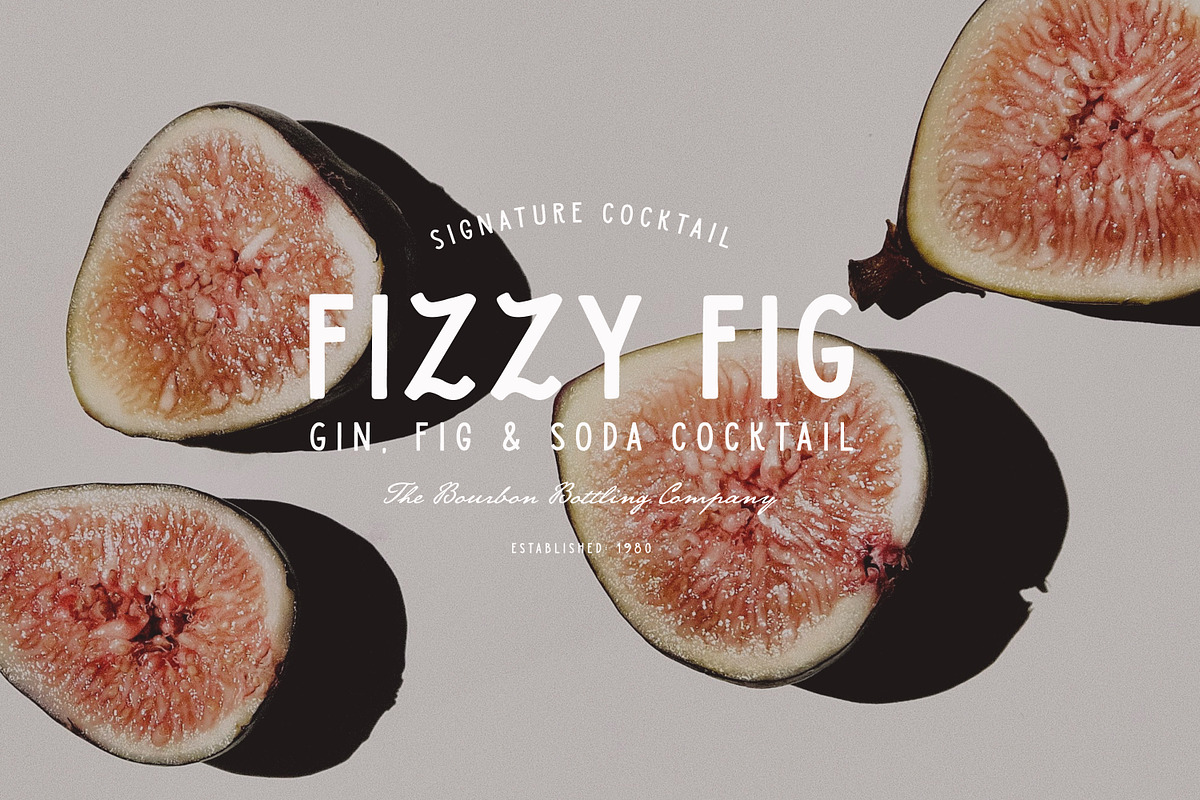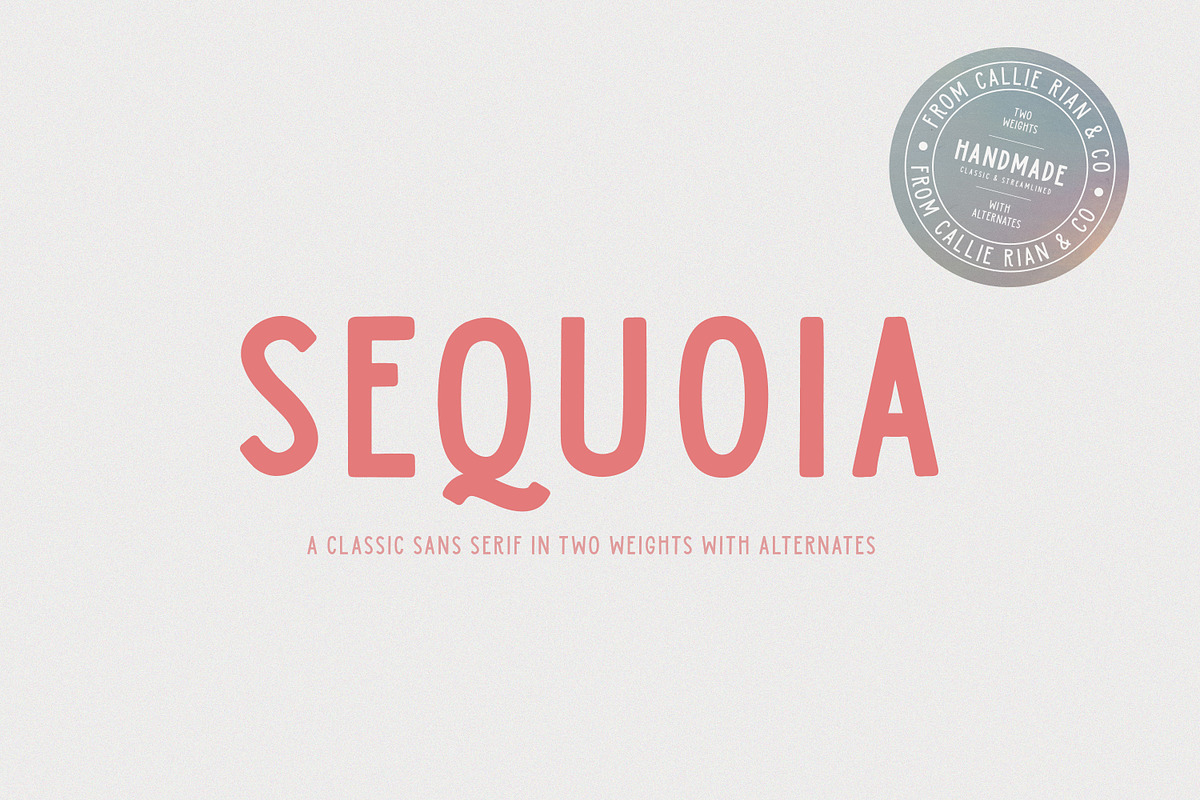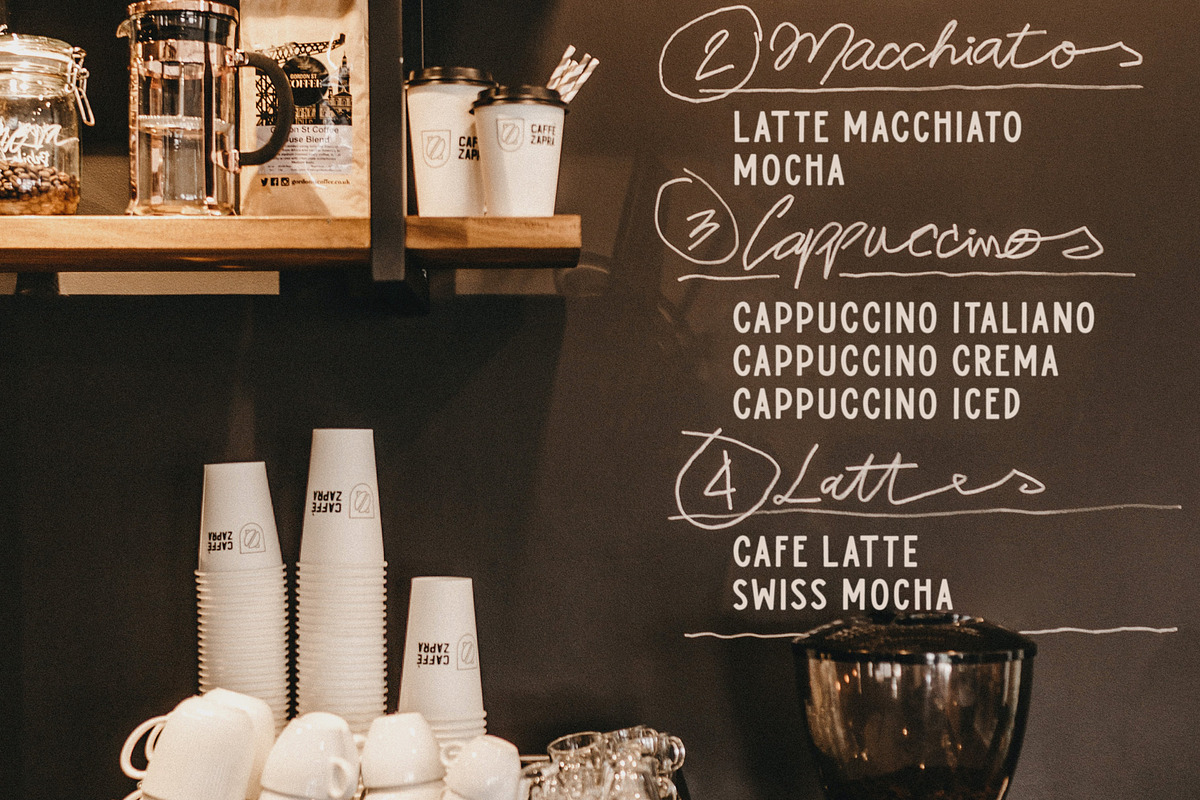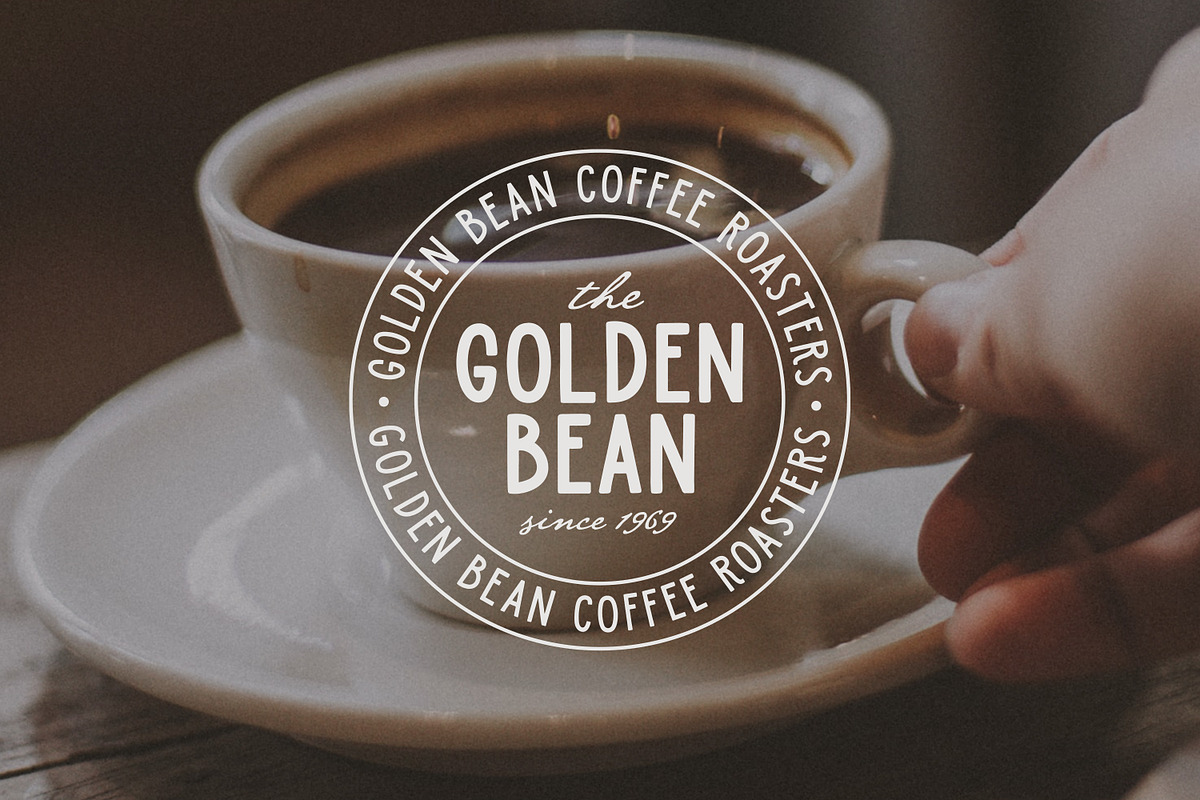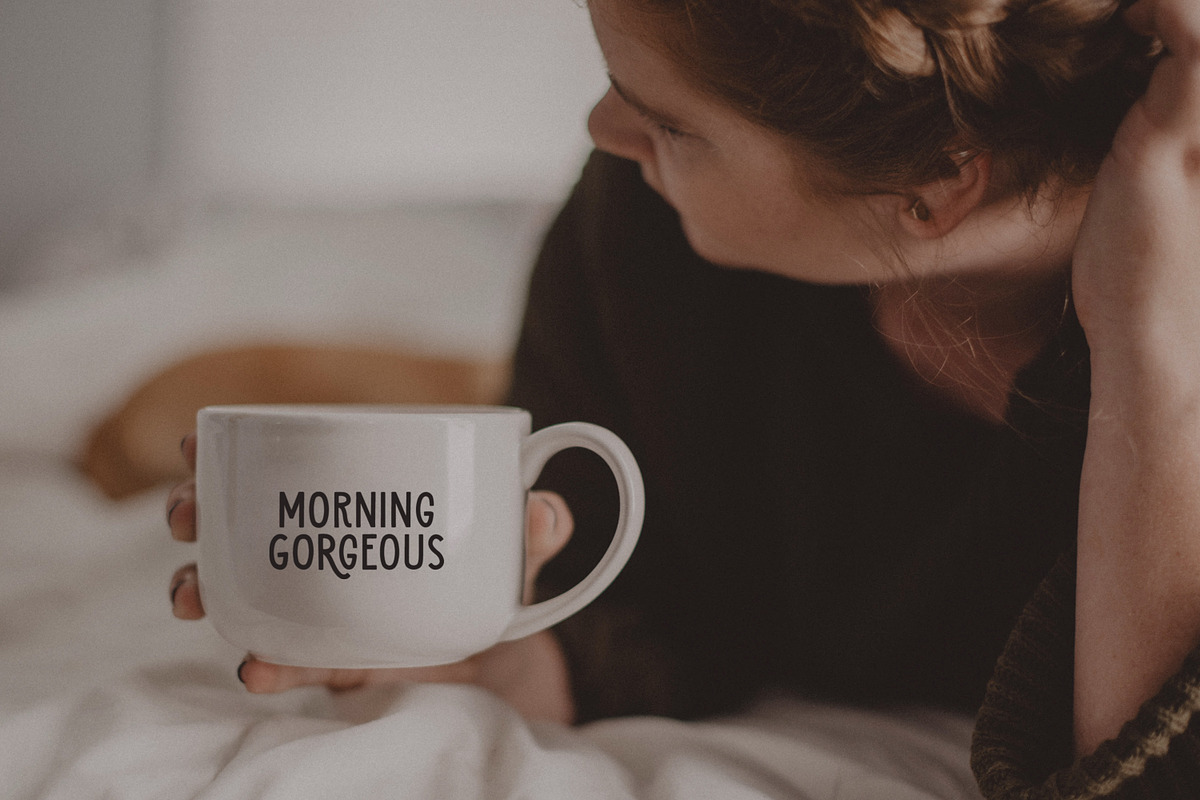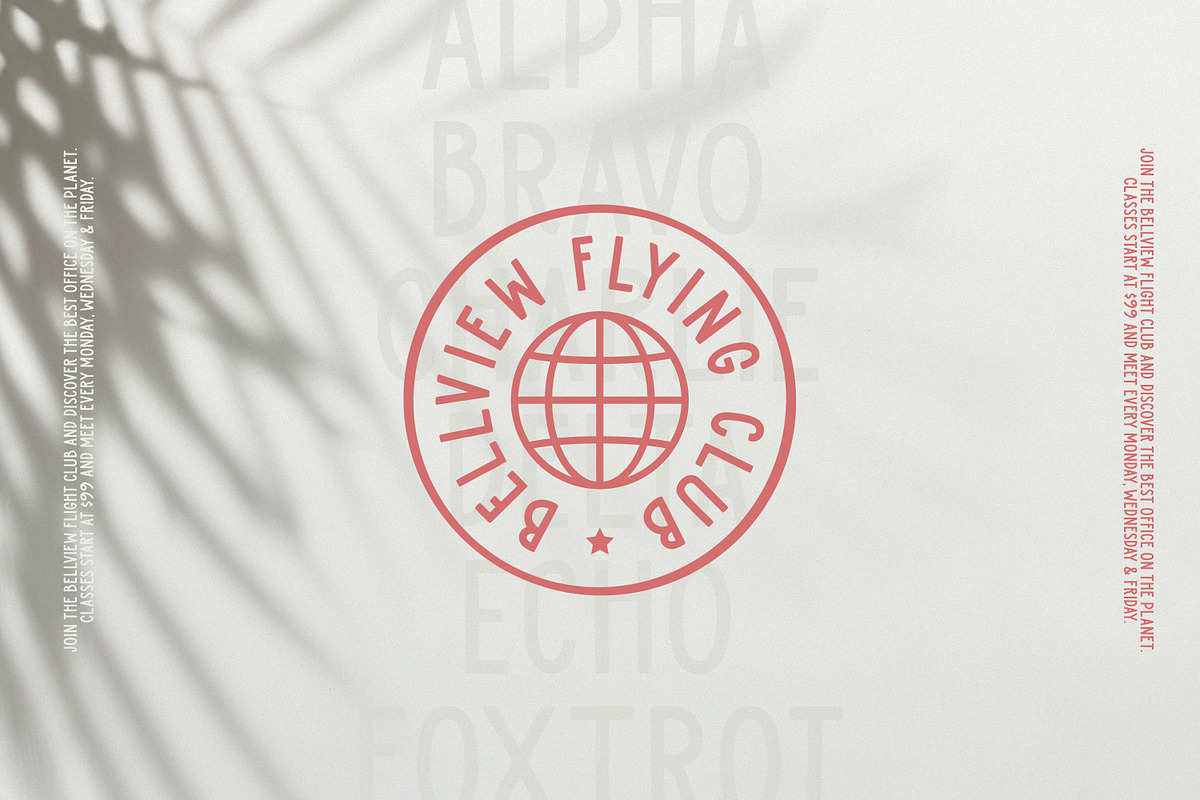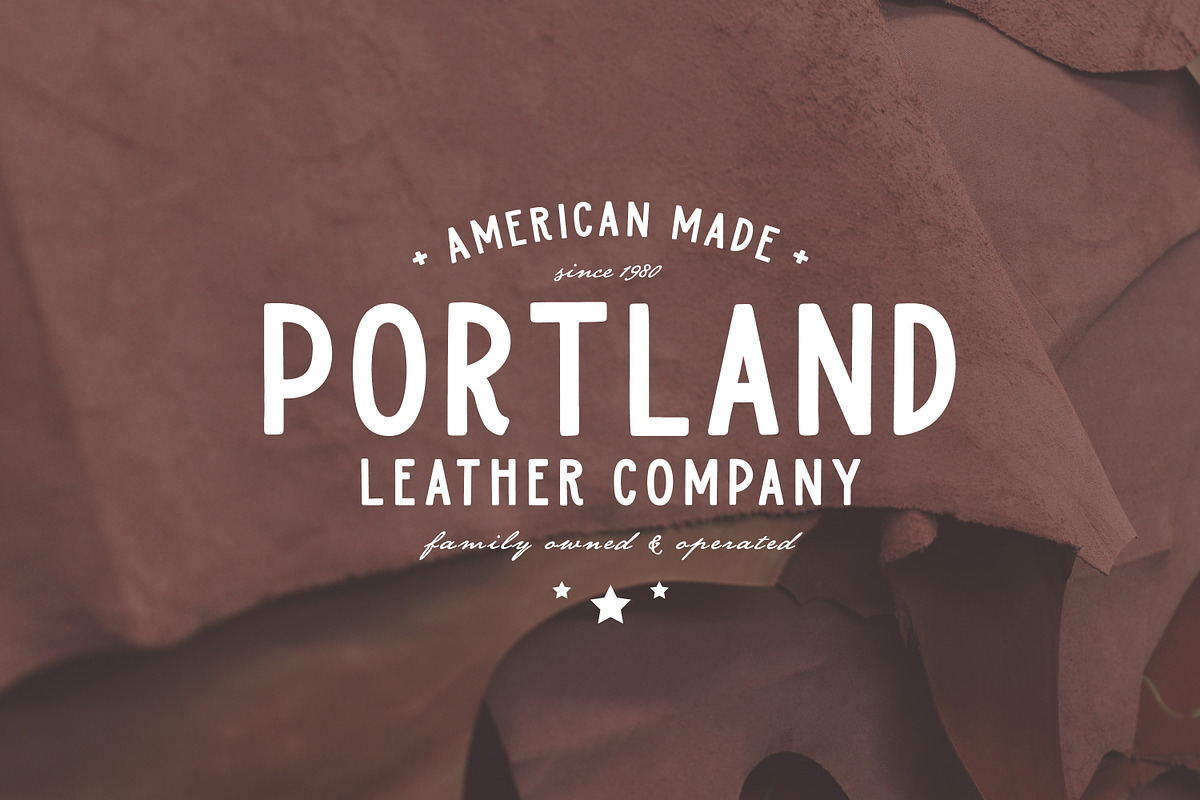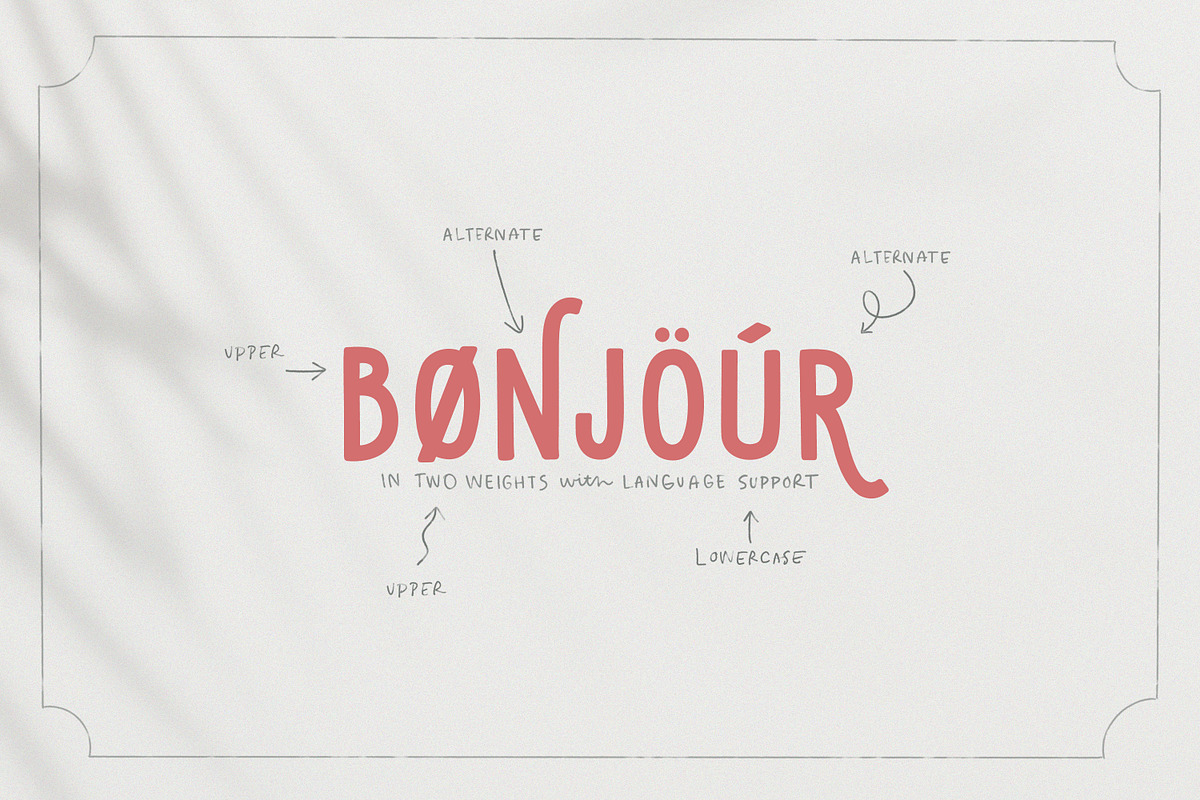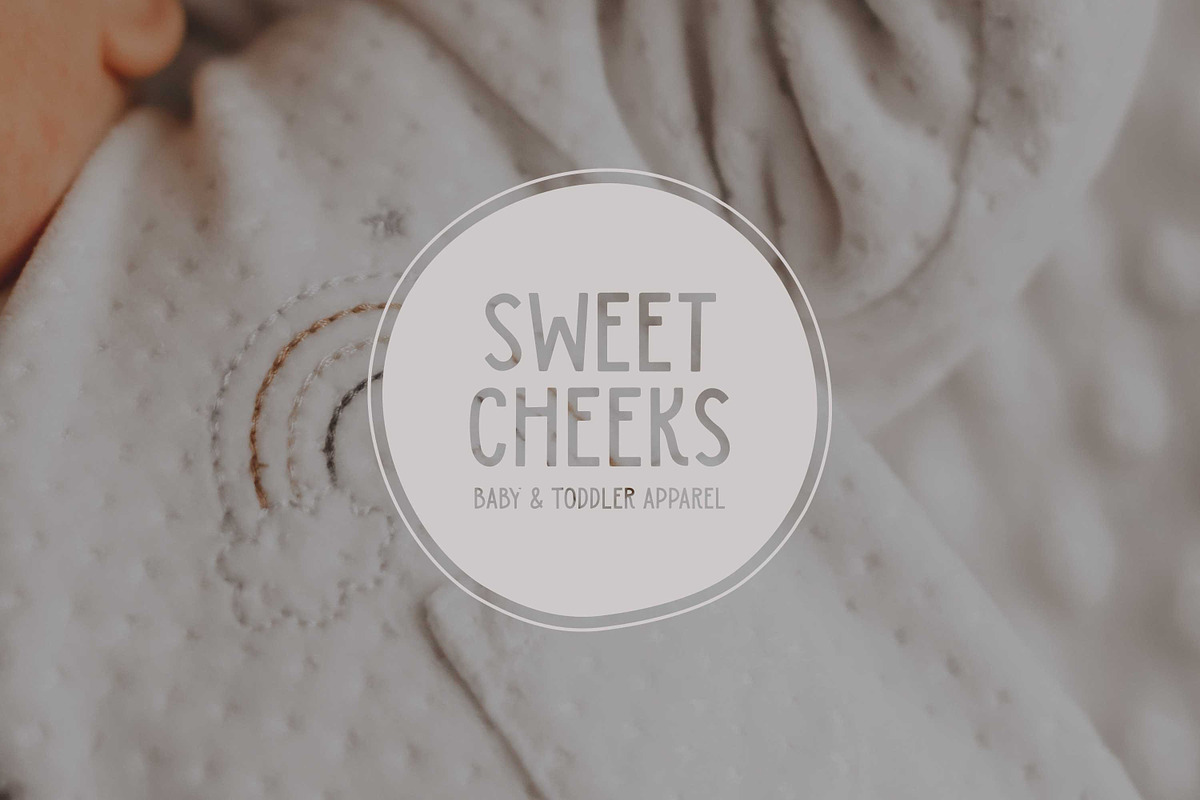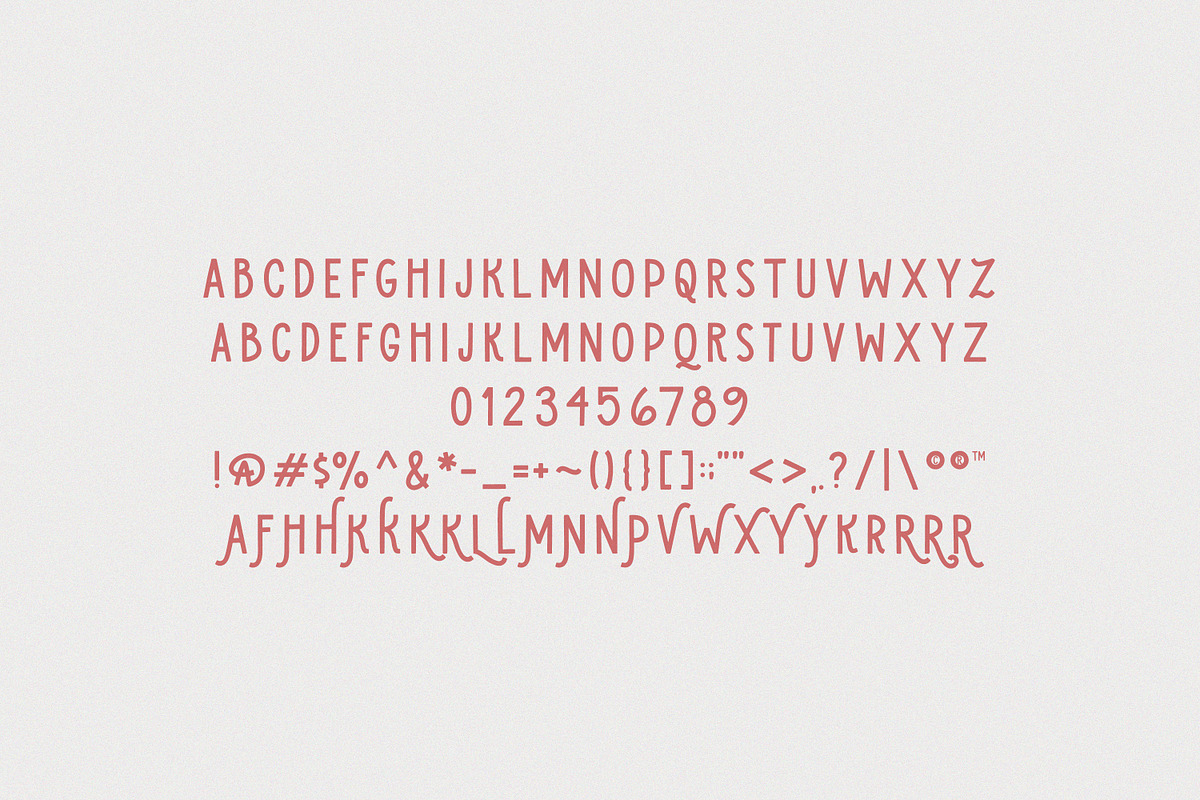
Sequoia Sans - Elegant Display Font
Introducing Sequoia Sans, a modern, streamlined, all-caps display font, inspired by bold, clean headlines. Sequoia Sans comes in two weights (regular & bold), and boasts 25 decorative alternates with language support. Use on logos, magazines, headlines, branding, quotes, merch, billboards and more!
- Please Note these fonts are hand drawn and vectorized, so they have a nature texture that isn’t 100% smooth. However, they should cut just fine with a Cricut or Silhouette machine.